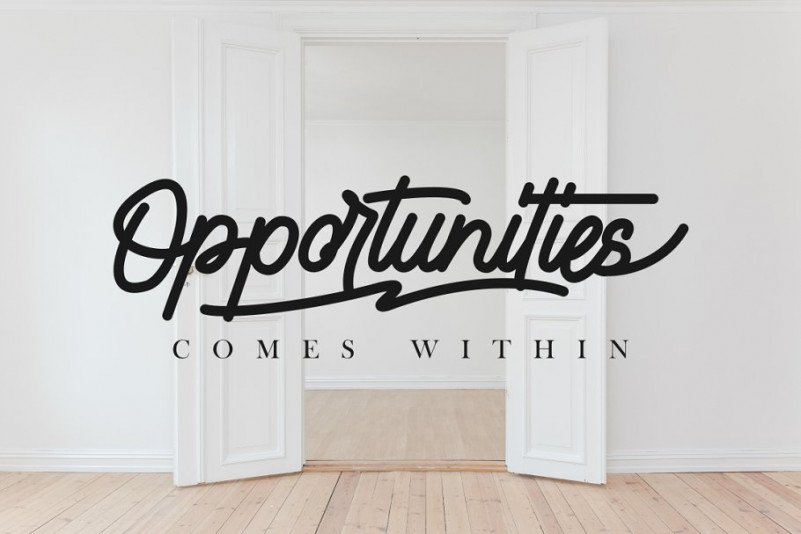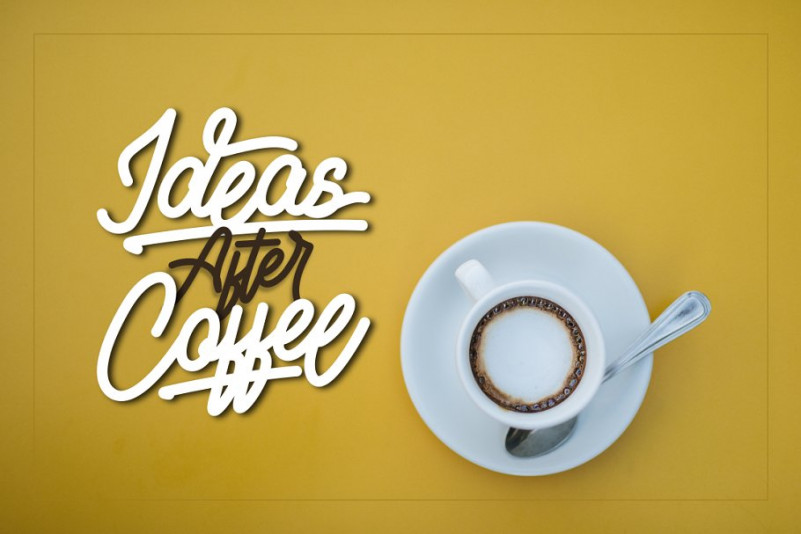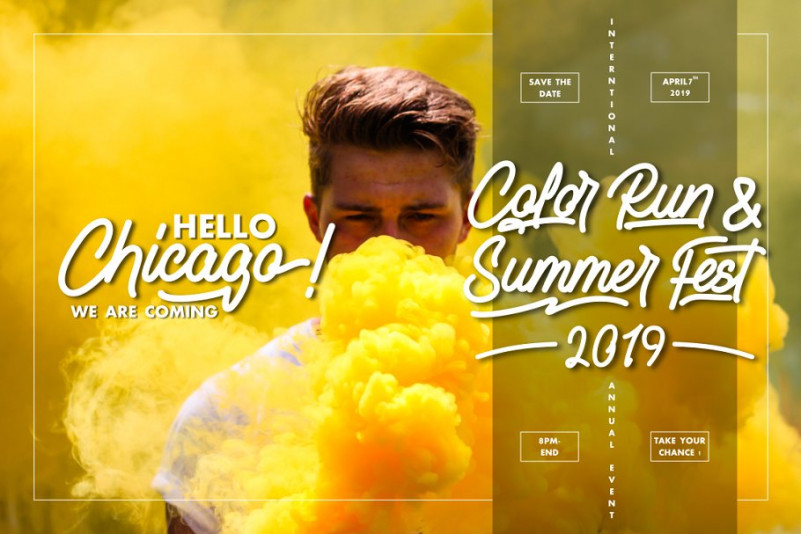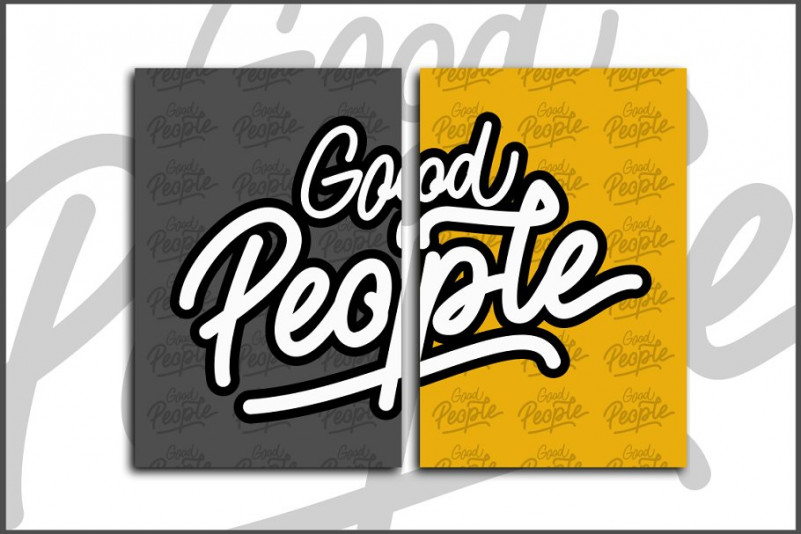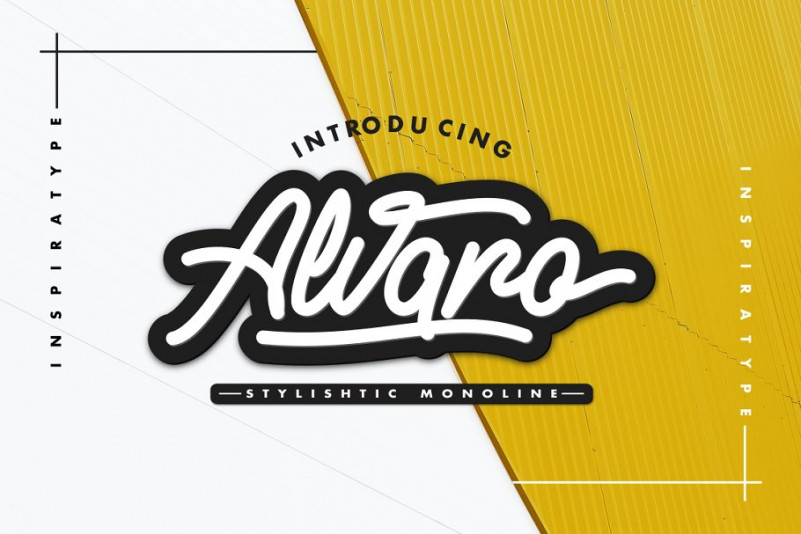
Alvaro Stylistic Monoline Font
Alvaro Stylistic Monoline Demo Font
This is a High quality monoline script font with swashes inspired by adventorous vibe and vintage design. If you are looking for a handcrafted vintage script font, that’s it. Introducing Alvaro Font. Alvaro Stylistic Monoline Font is a font display is made by hand, inspired by classic posters. Comes with uppercase, lowercase, numerals, punctuations and so many variations on each character include OpenType alternates, common ligatures and also additional swash to let you customize your designs. Perfect to use for Logotype, Letterhead, Poster, Apparel Design, Label and etc.